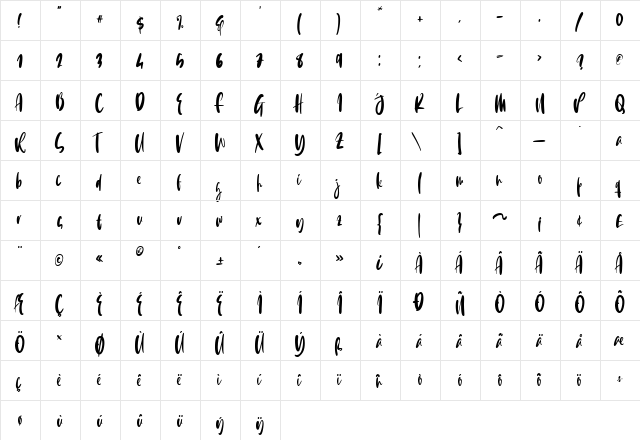
Hello Juliette Regular
| Foundry | Colllab Studio |
| Designer | Colllab Studio |
Design Context for Hello Juliette Typeface
Hello Juliette is a composed and adaptable typeface that performs quietly and consistently across a wide range of design contexts.